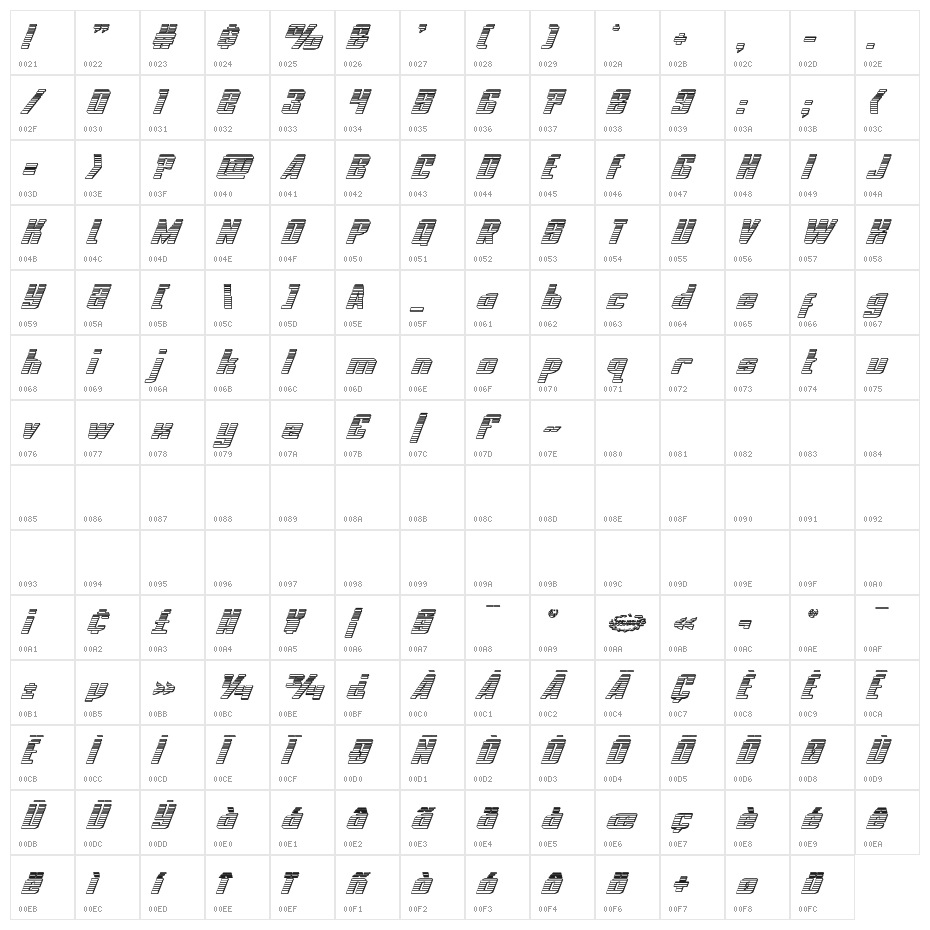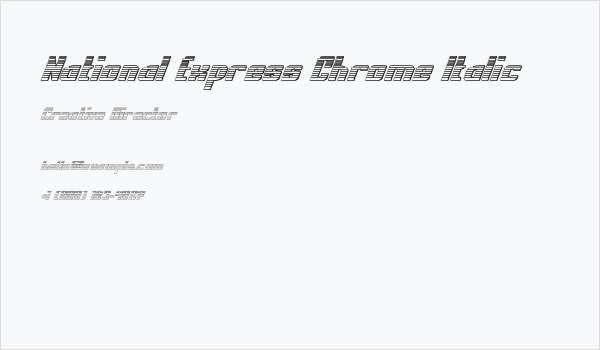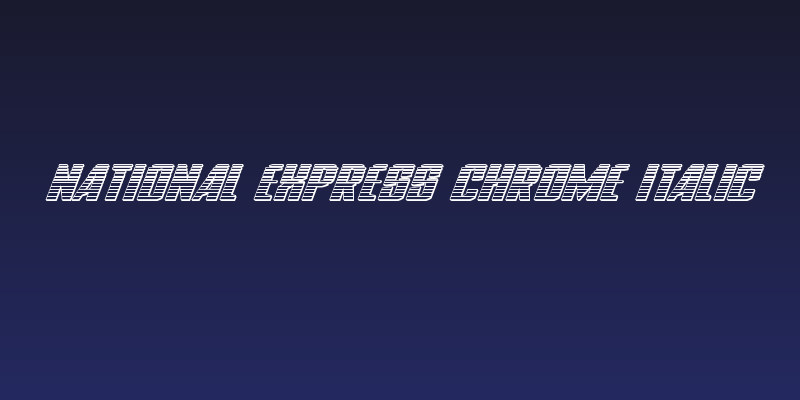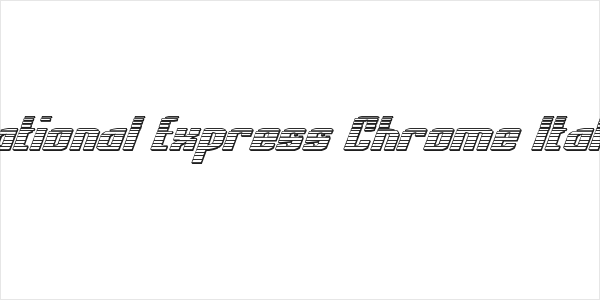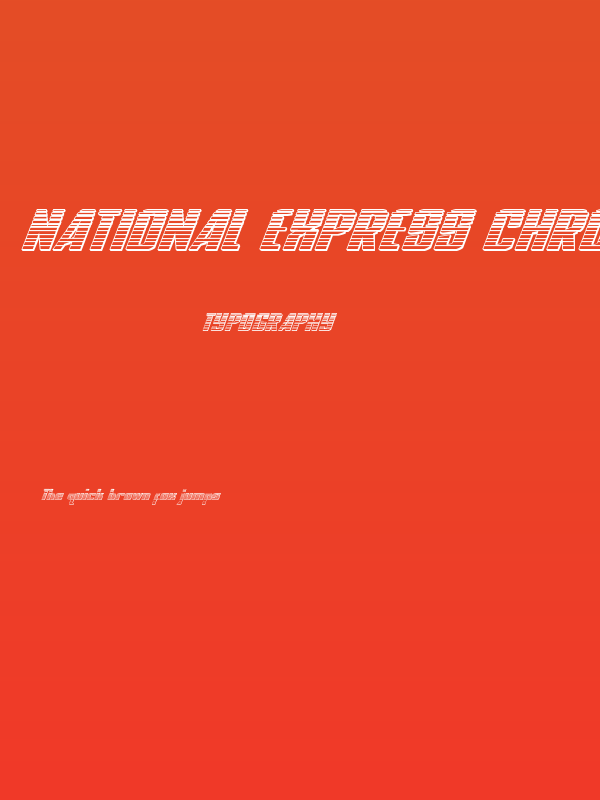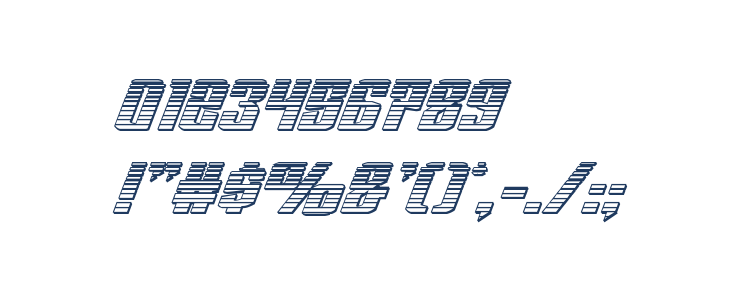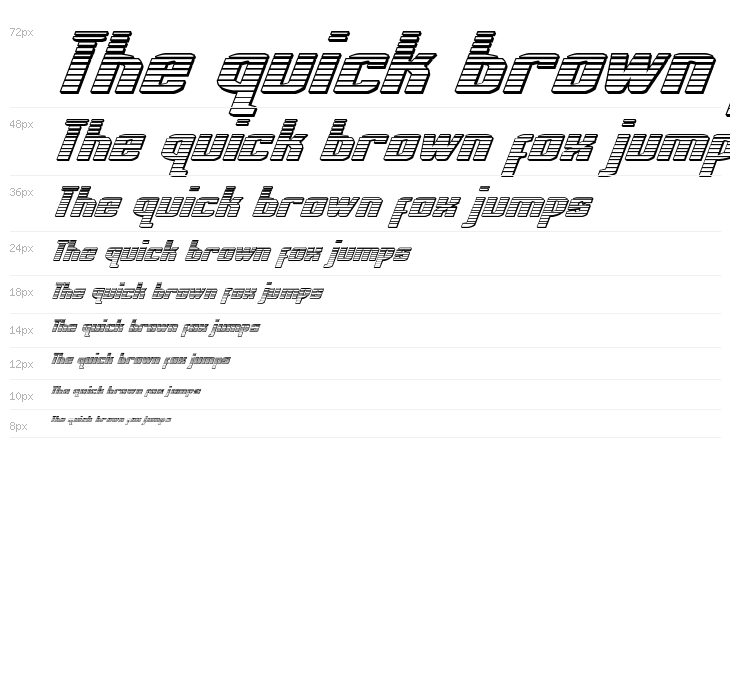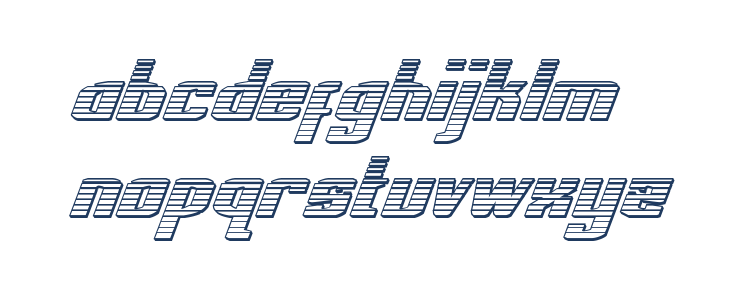
National Express Chrome Italic Font
National Express Chrome Italic Description
This font features a bold, italicized style with a distinctive chrome-like appearance. The characters are designed with a three-dimensional effect, giving them a layered, striped look that suggests movement and dynamism. The uppercase and lowercase letters maintain a consistent slant, enhancing the italicized effect. The numerals and special characters follow the same design principles, ensuring uniformity across the font. This typeface is highly decorative, making it ideal for eye-catching designs where a futuristic or industrial aesthetic is desired.
| Proposed Projects | Ideal for futuristic designs, automotive branding, video game titles, and tech-related projects. |